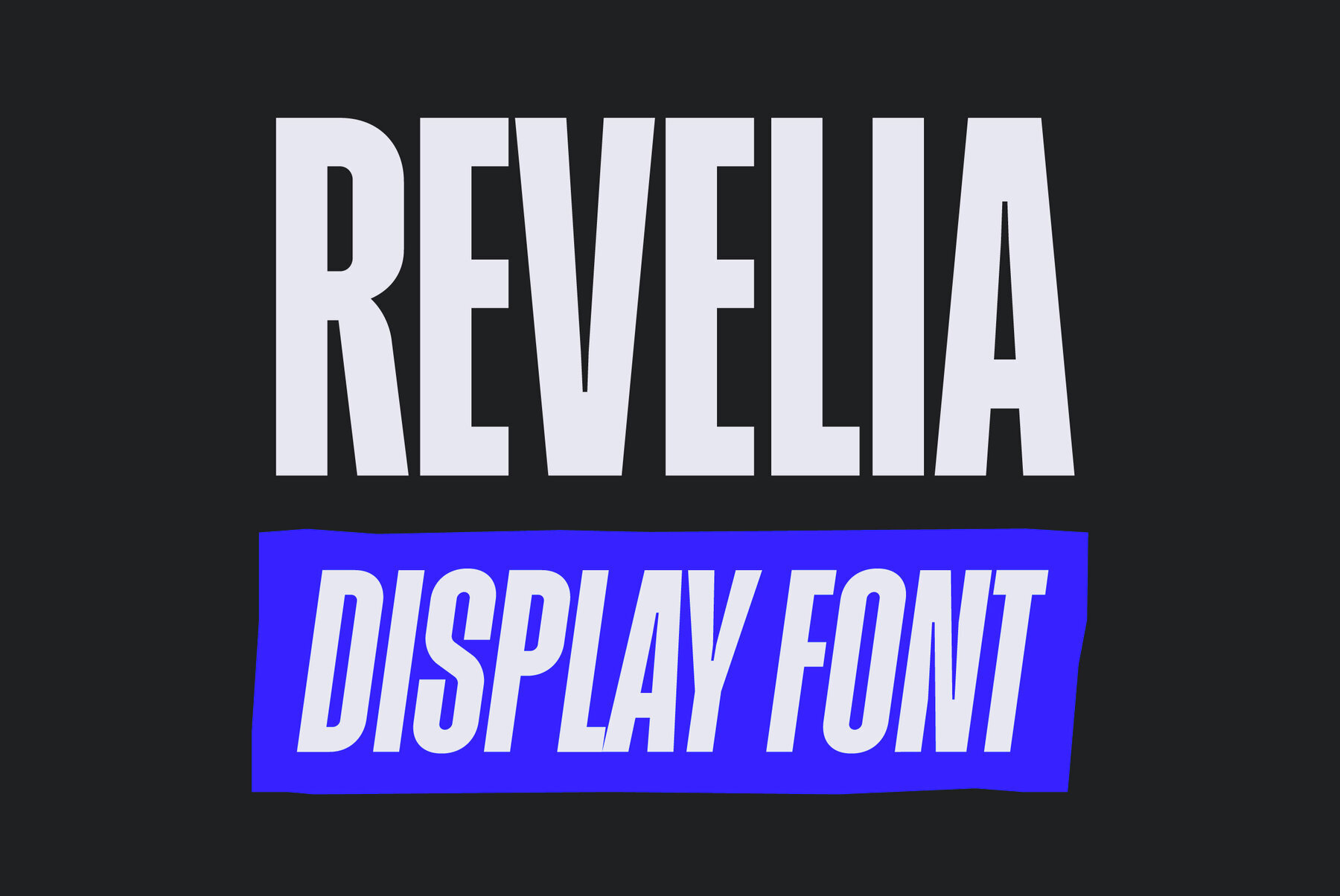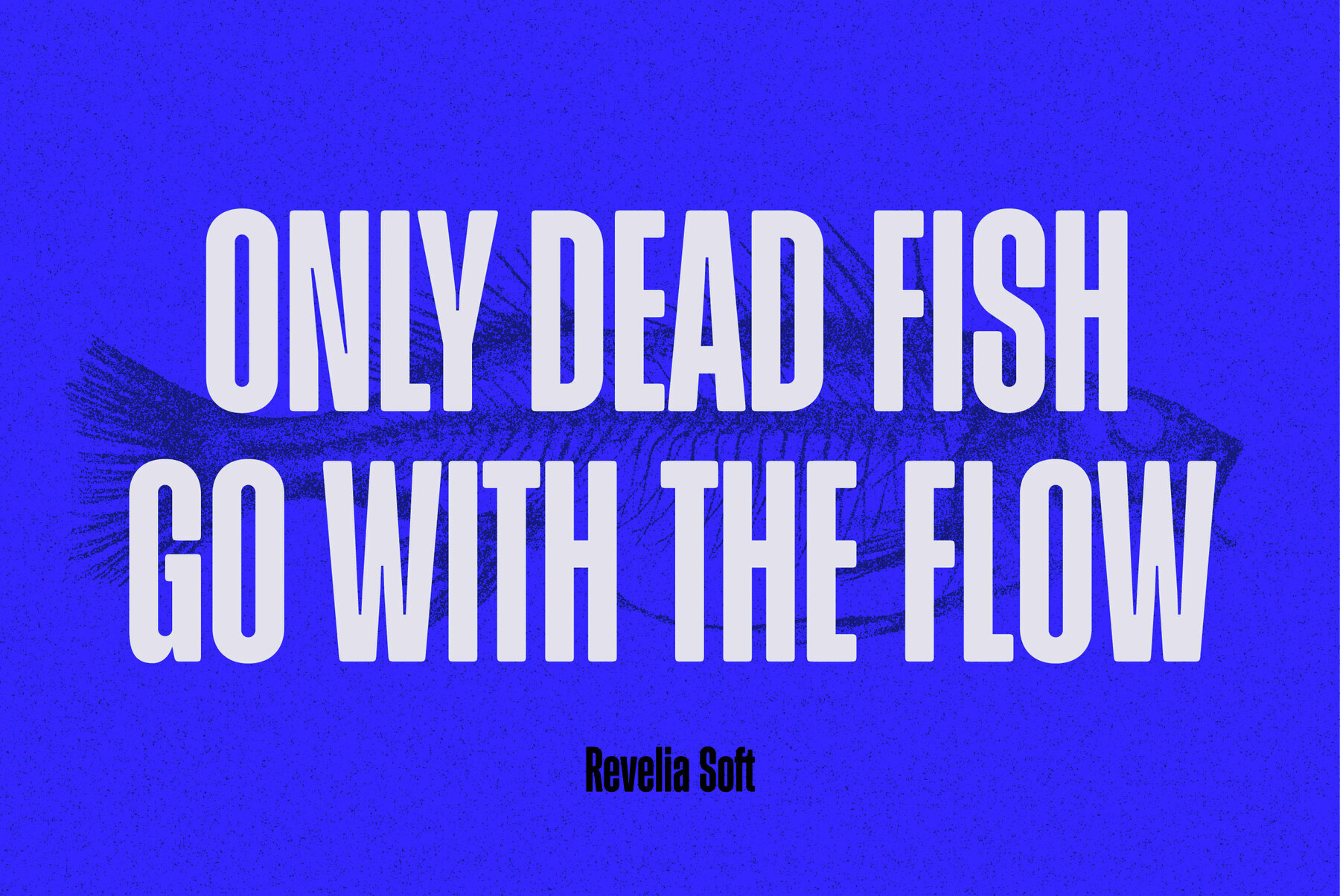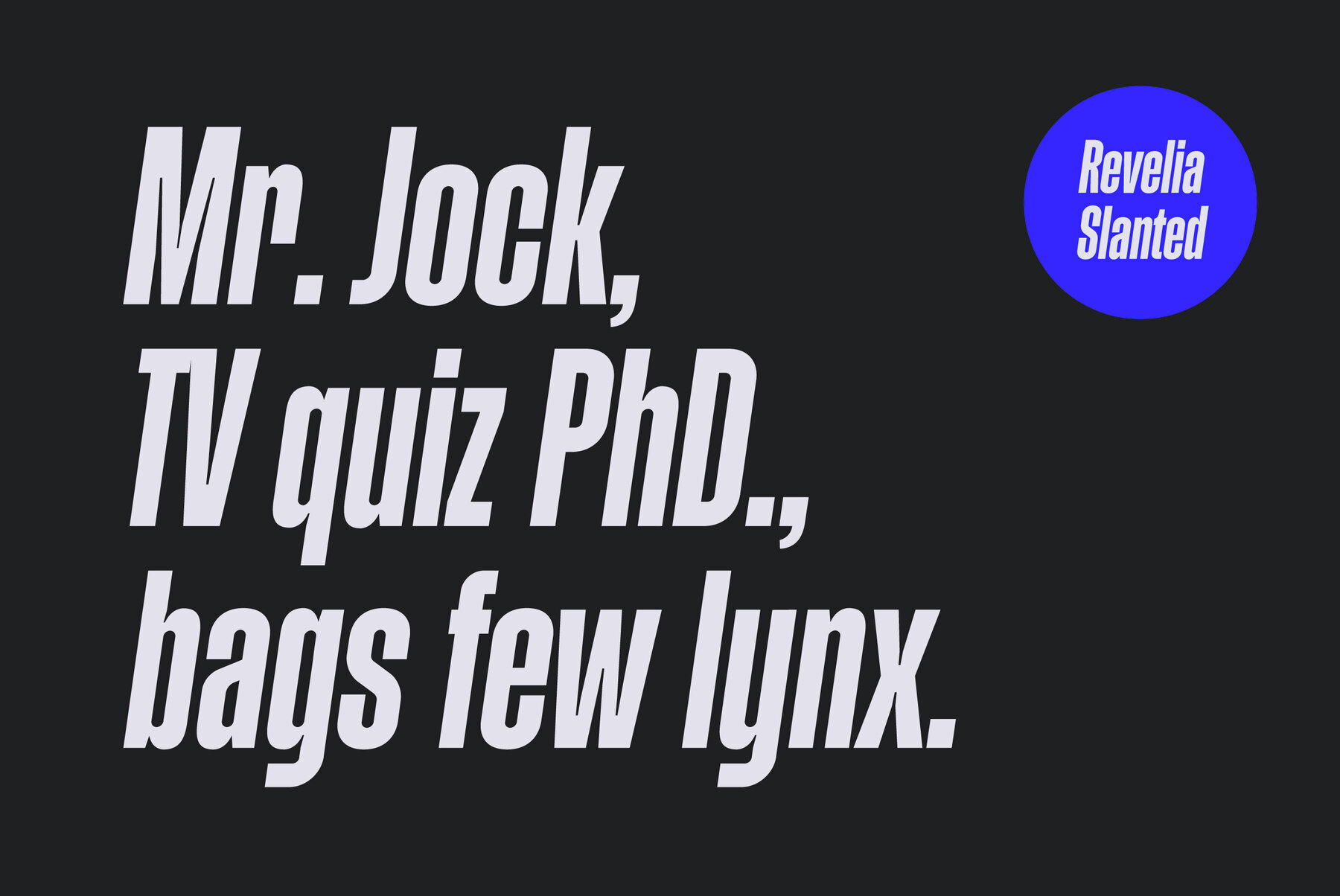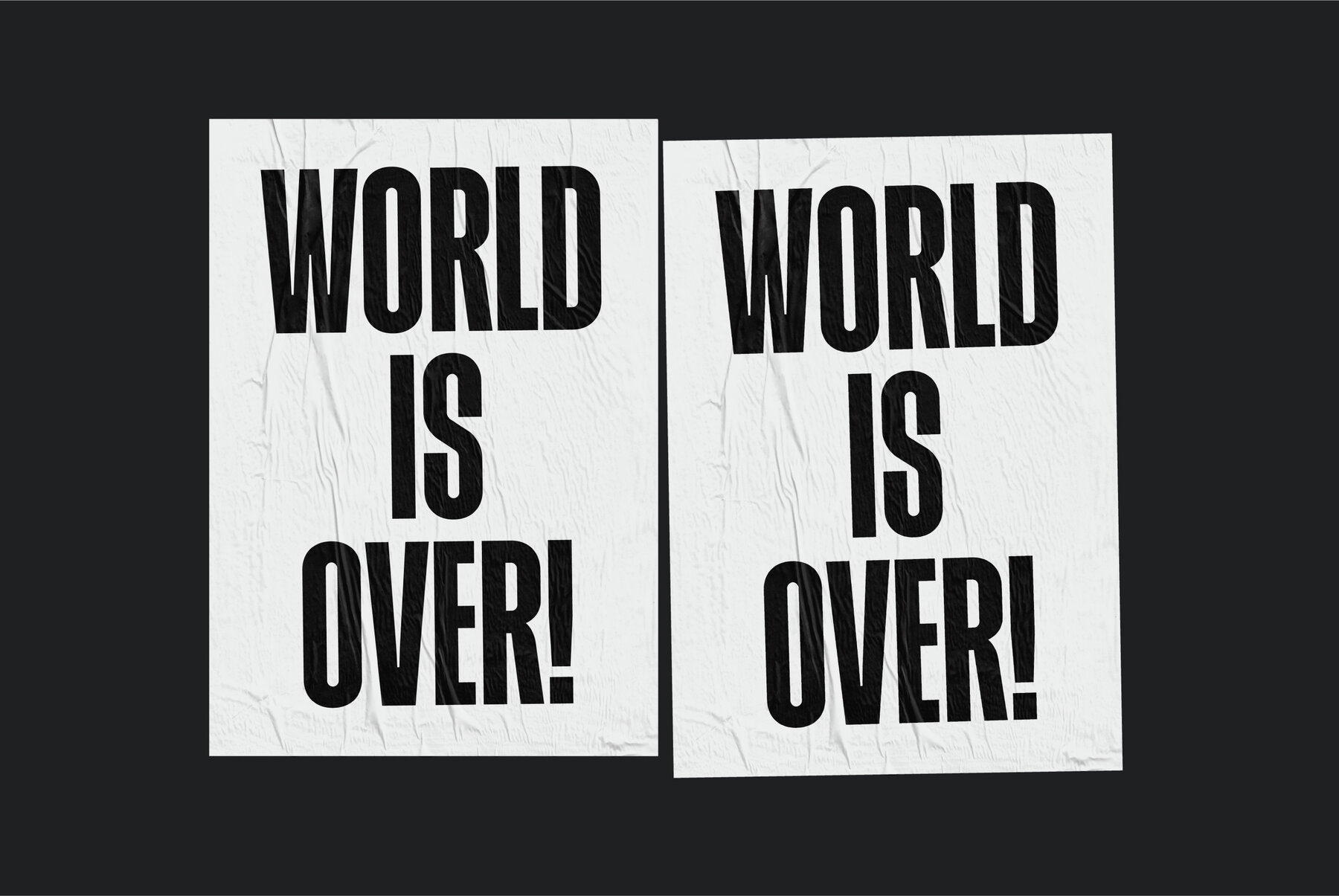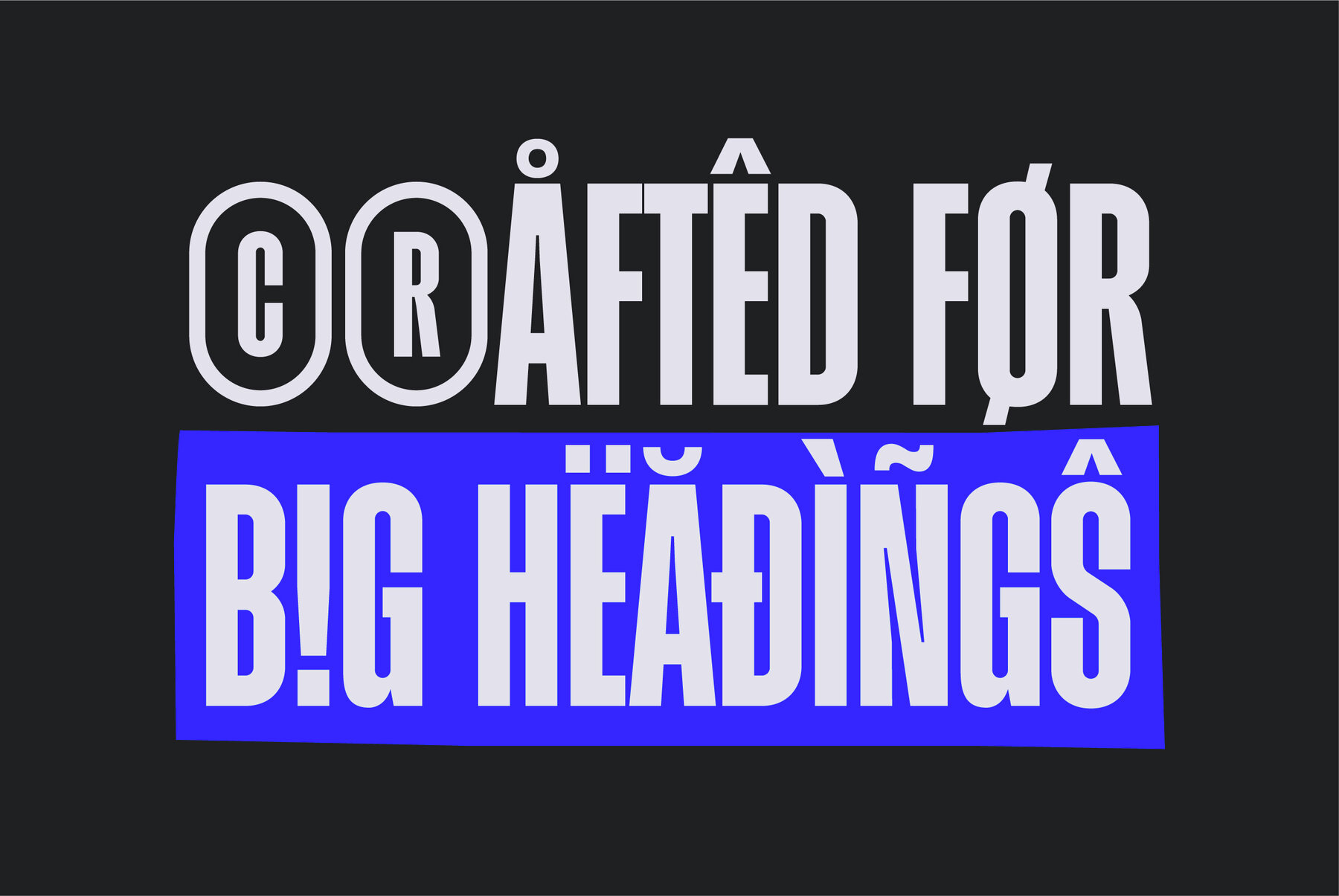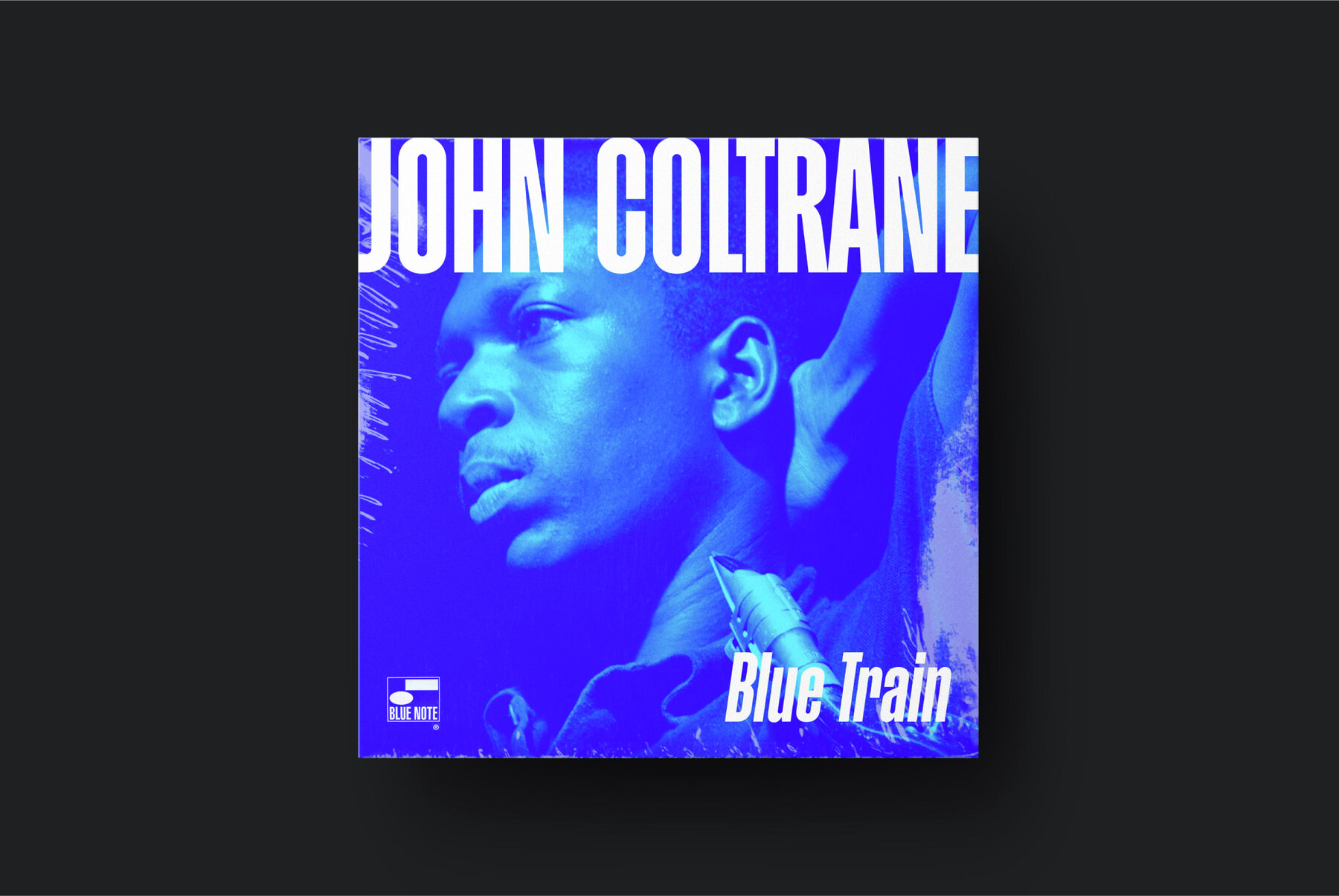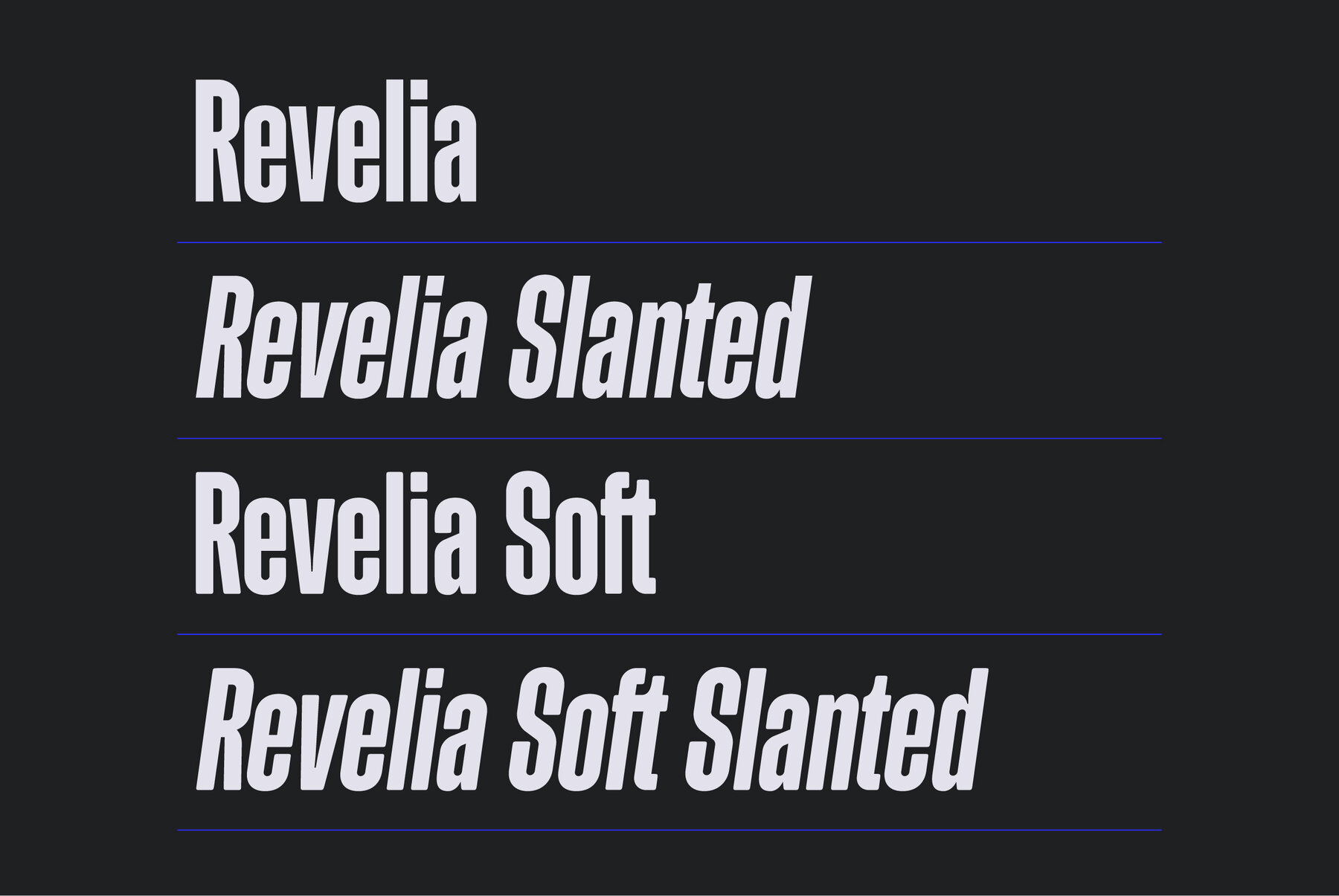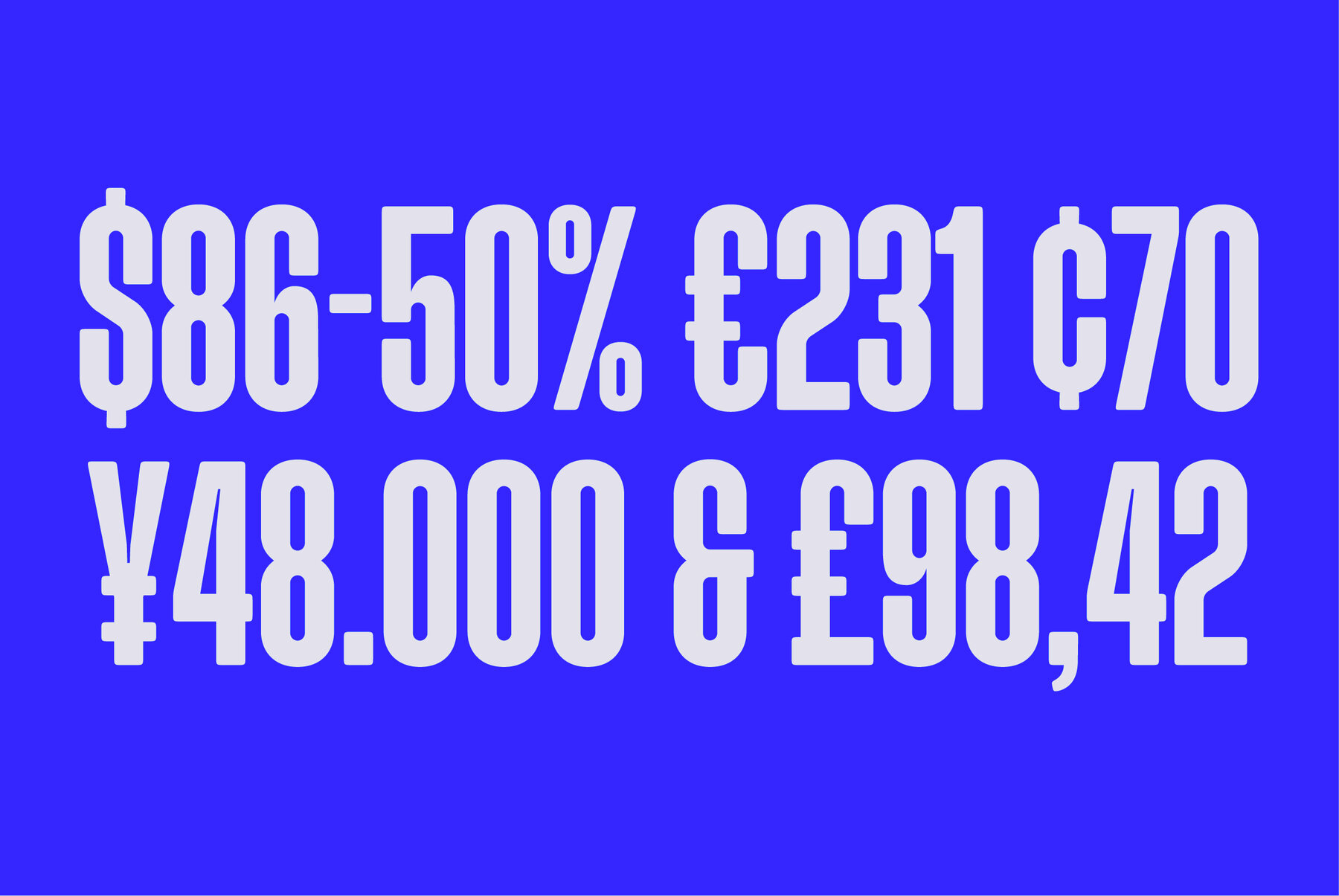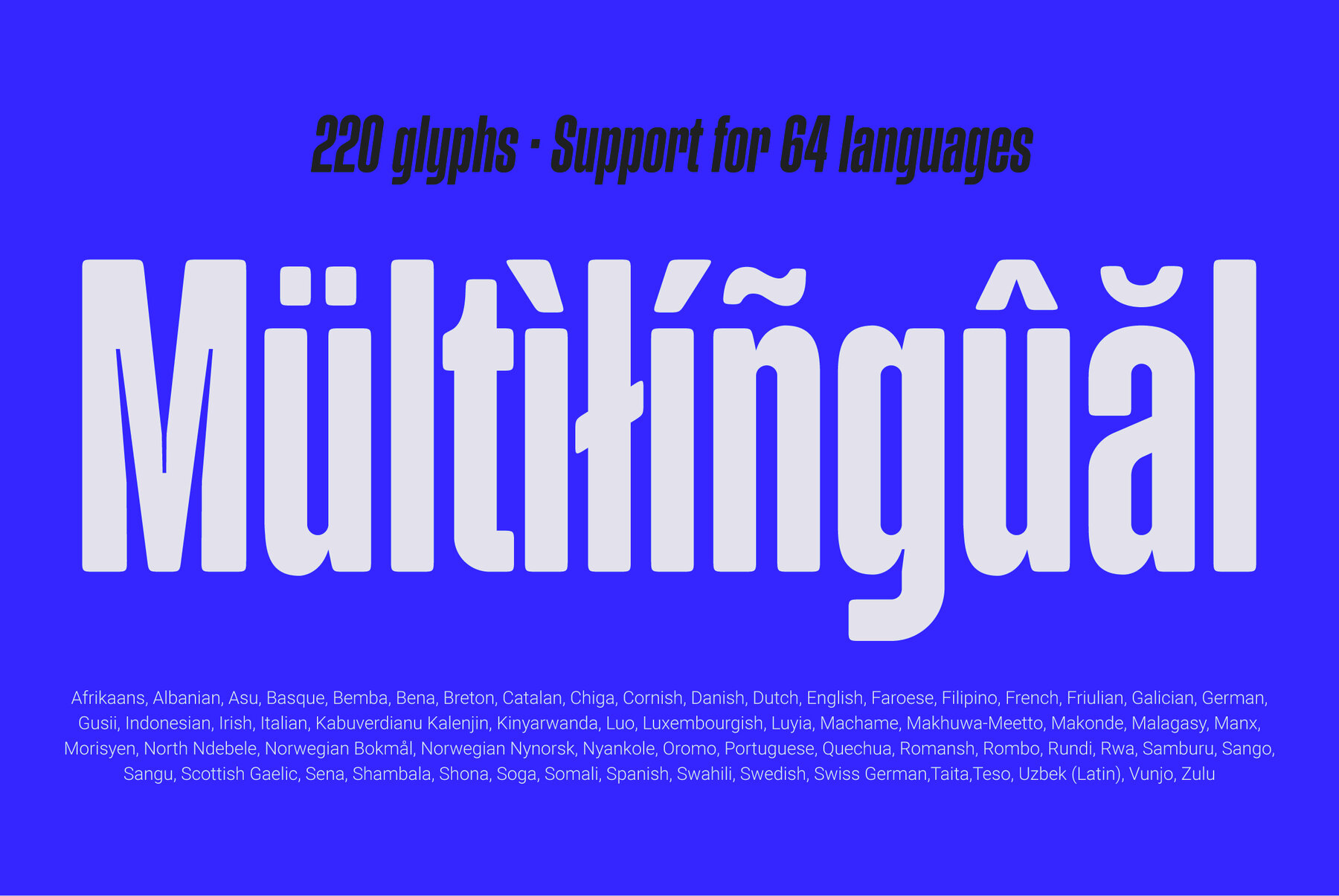
Revelia Font
Revelia is a condensed grotesque display typeface crafted especially for big headings. Its strong presence makes it ideal for making large impacts, perfect for posters, advertising, presentations, book/album covers, and more.